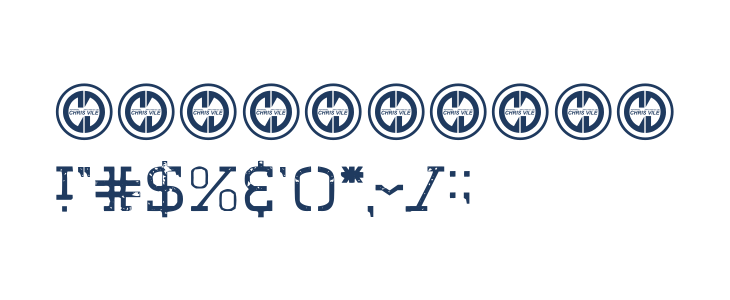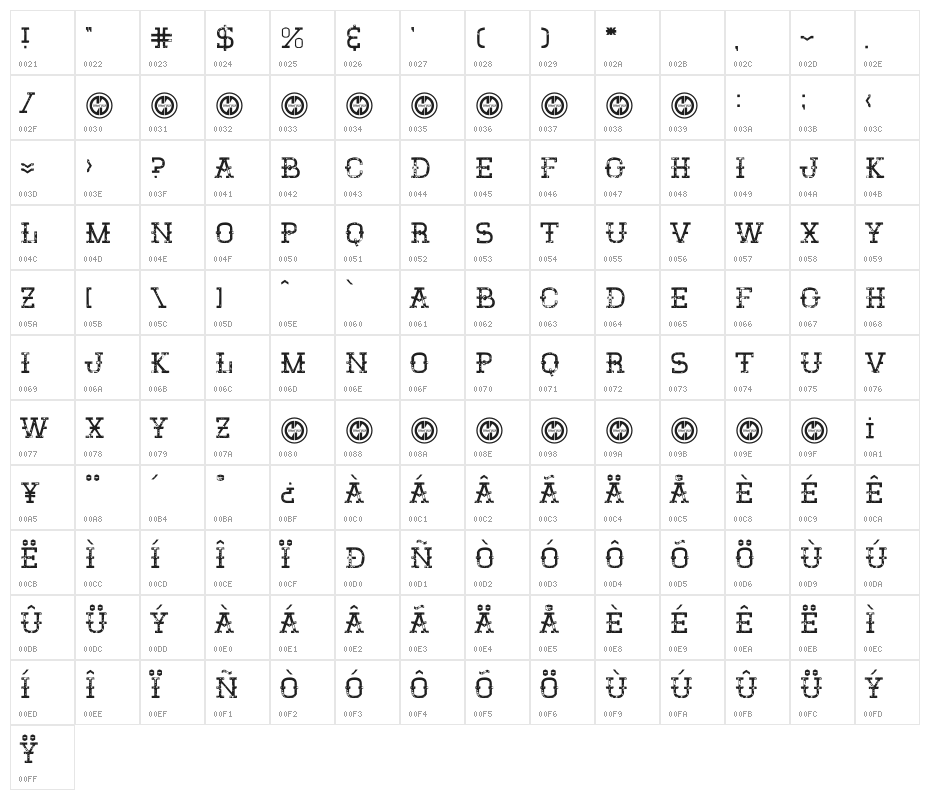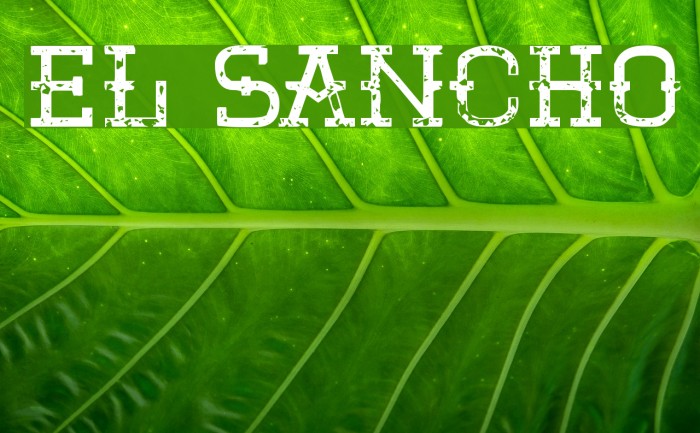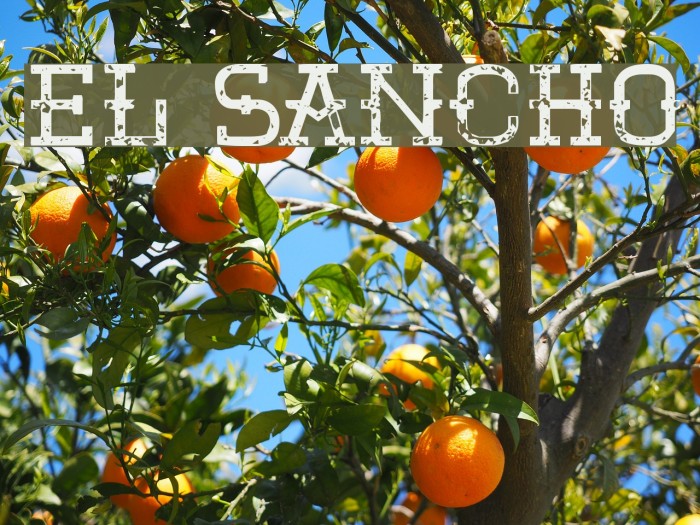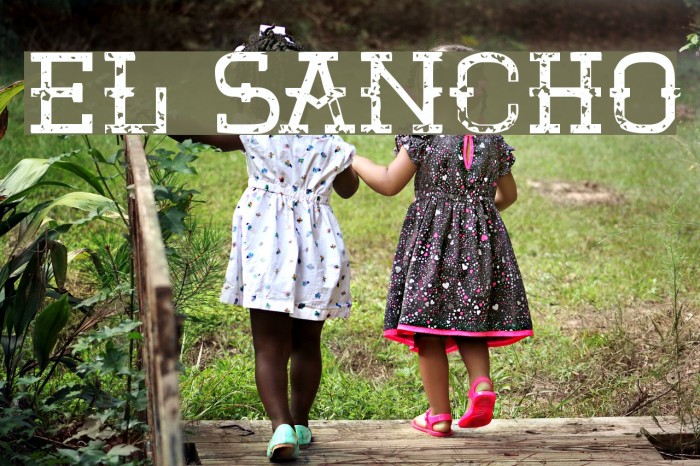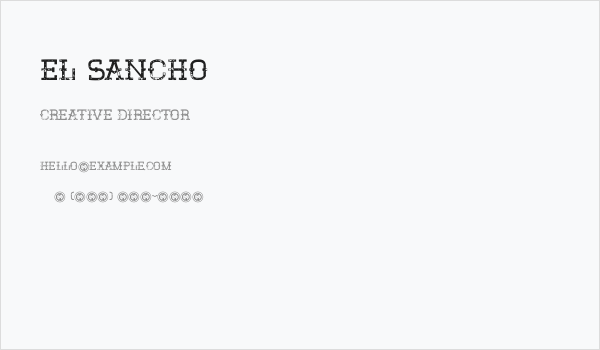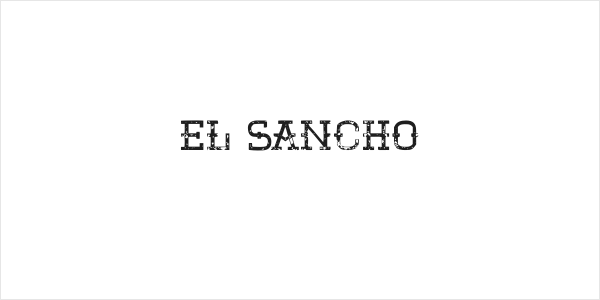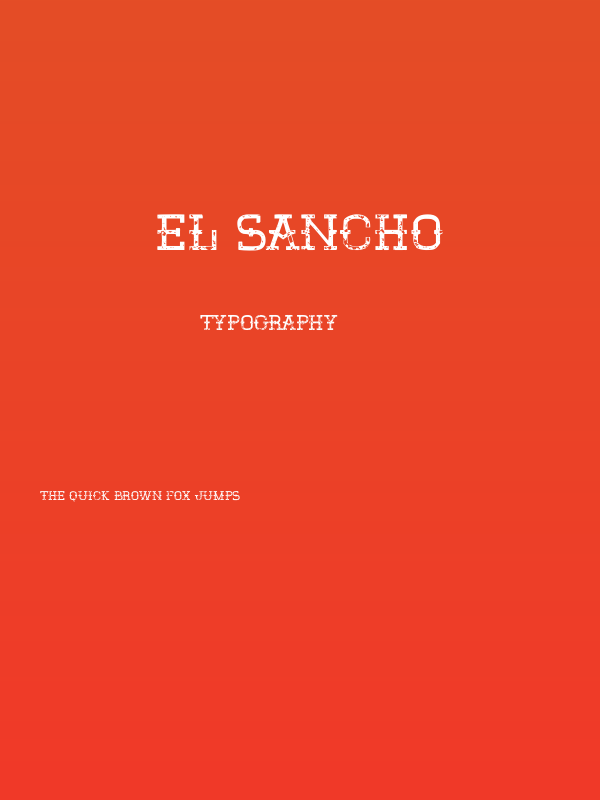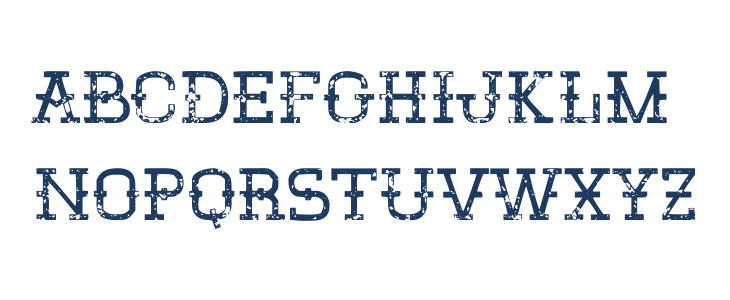
El Sancho Font
El Sancho Description
This font features a distressed, grunge style with a bold and impactful presence. Each character is designed with a textured, worn look, giving it a vintage and rugged appearance. The uppercase letters are uniform in size, while the lowercase letters maintain a consistent style. The numbers and special characters follow the same distressed theme, adding to the overall cohesive look. This font is perfect for projects that require a bold statement with an edgy, urban feel.
Overall StyleVintage, Grunge
Proposed ProjectsIdeal for posters, album covers, branding for edgy products, and any design needing a bold, vintage look.